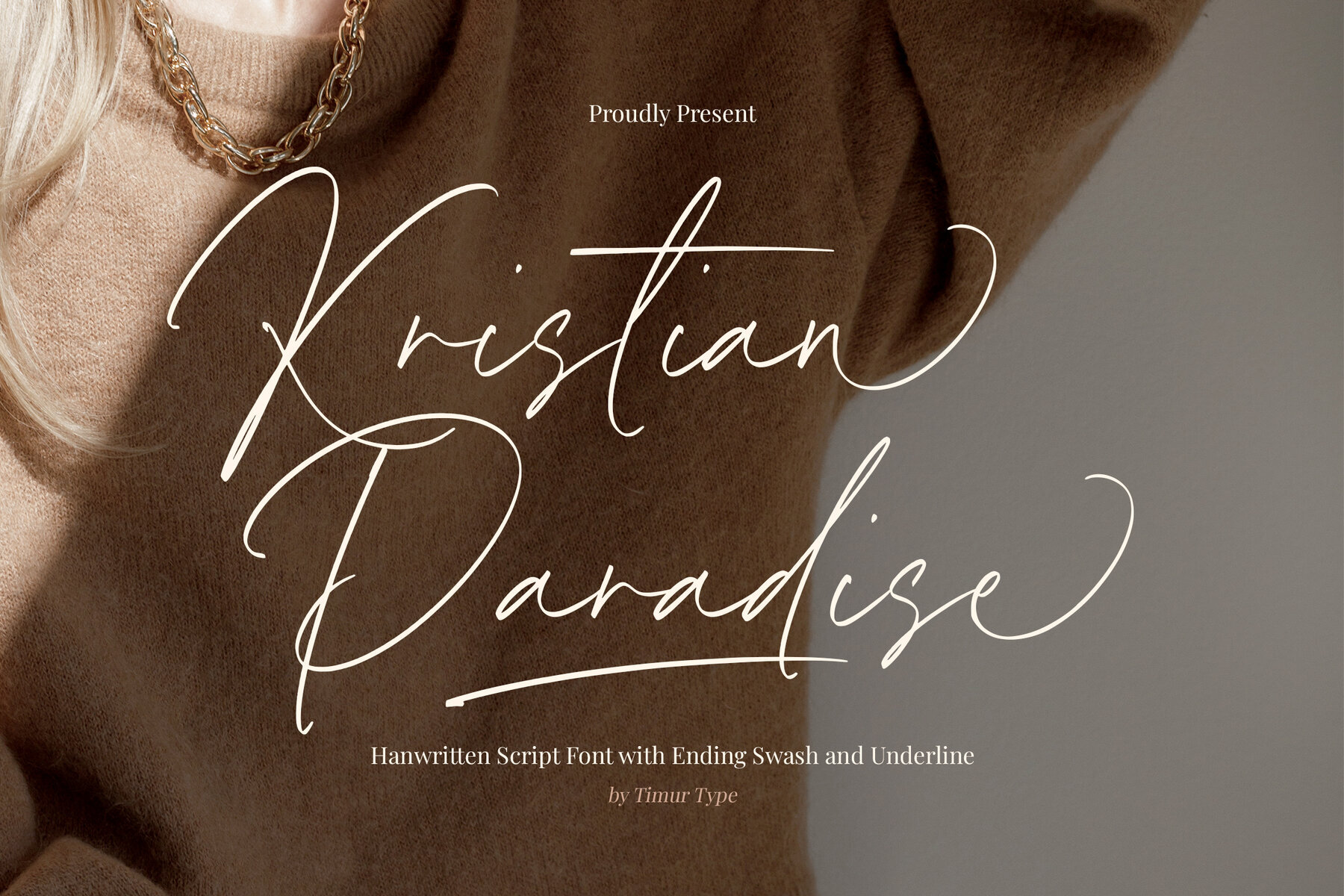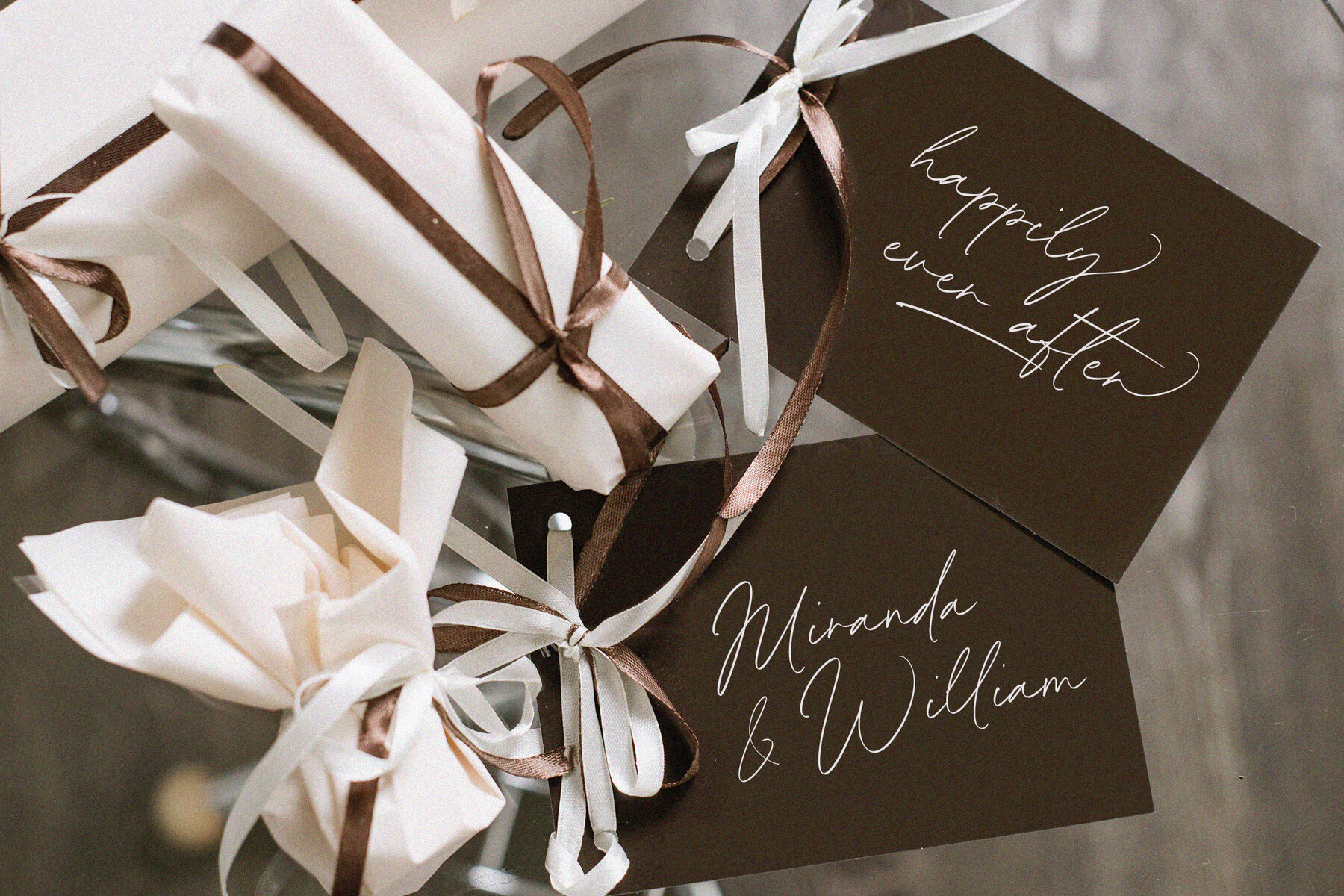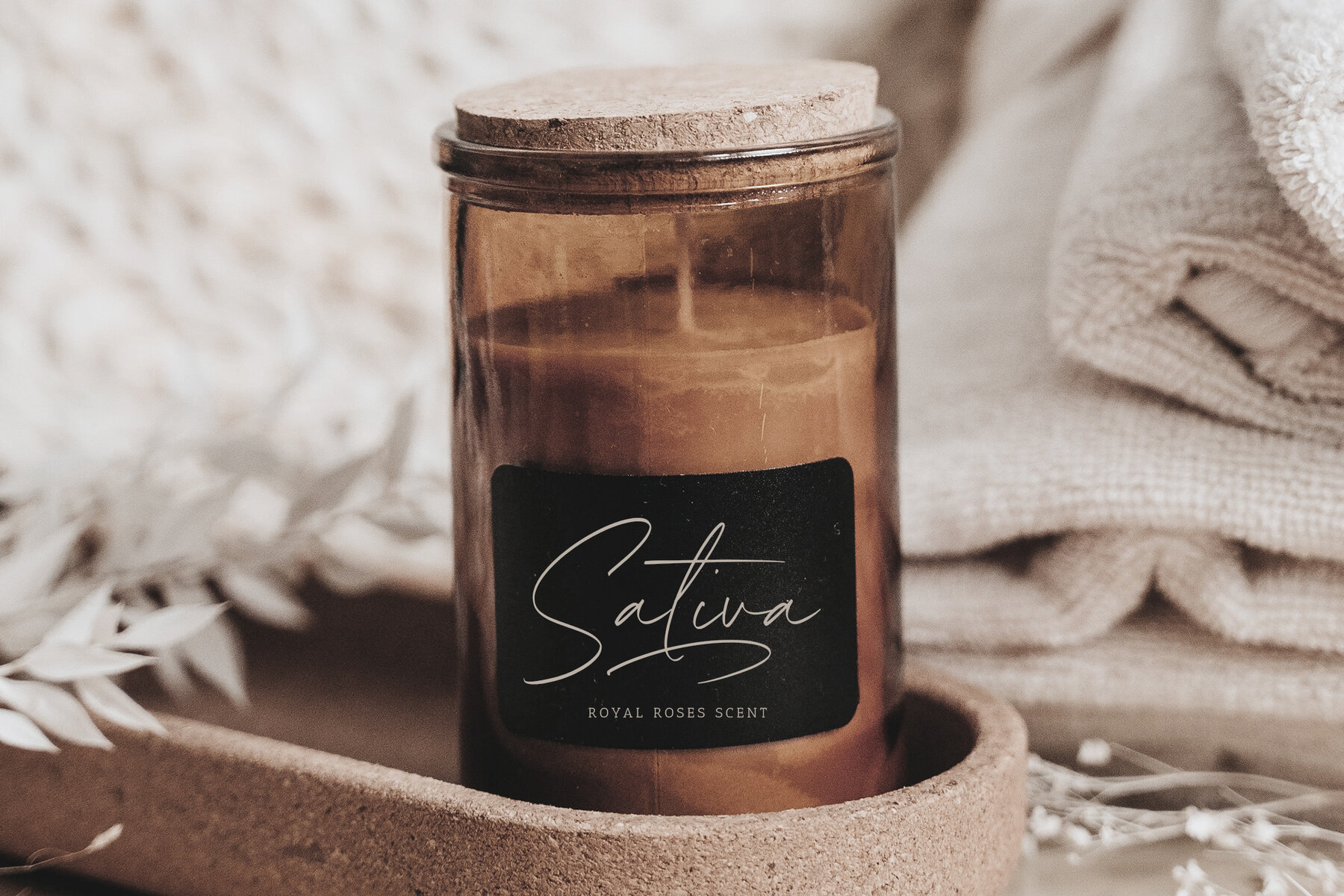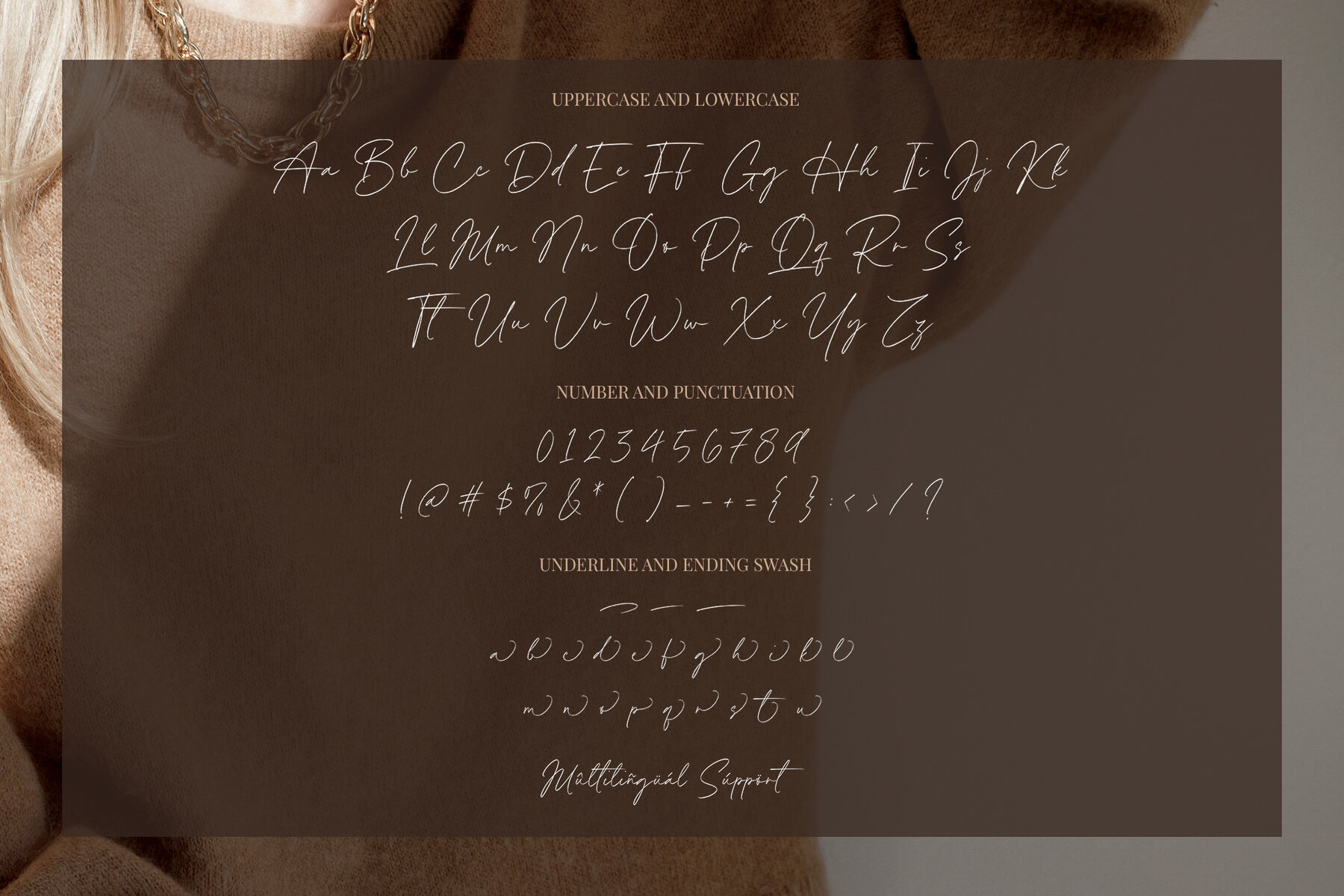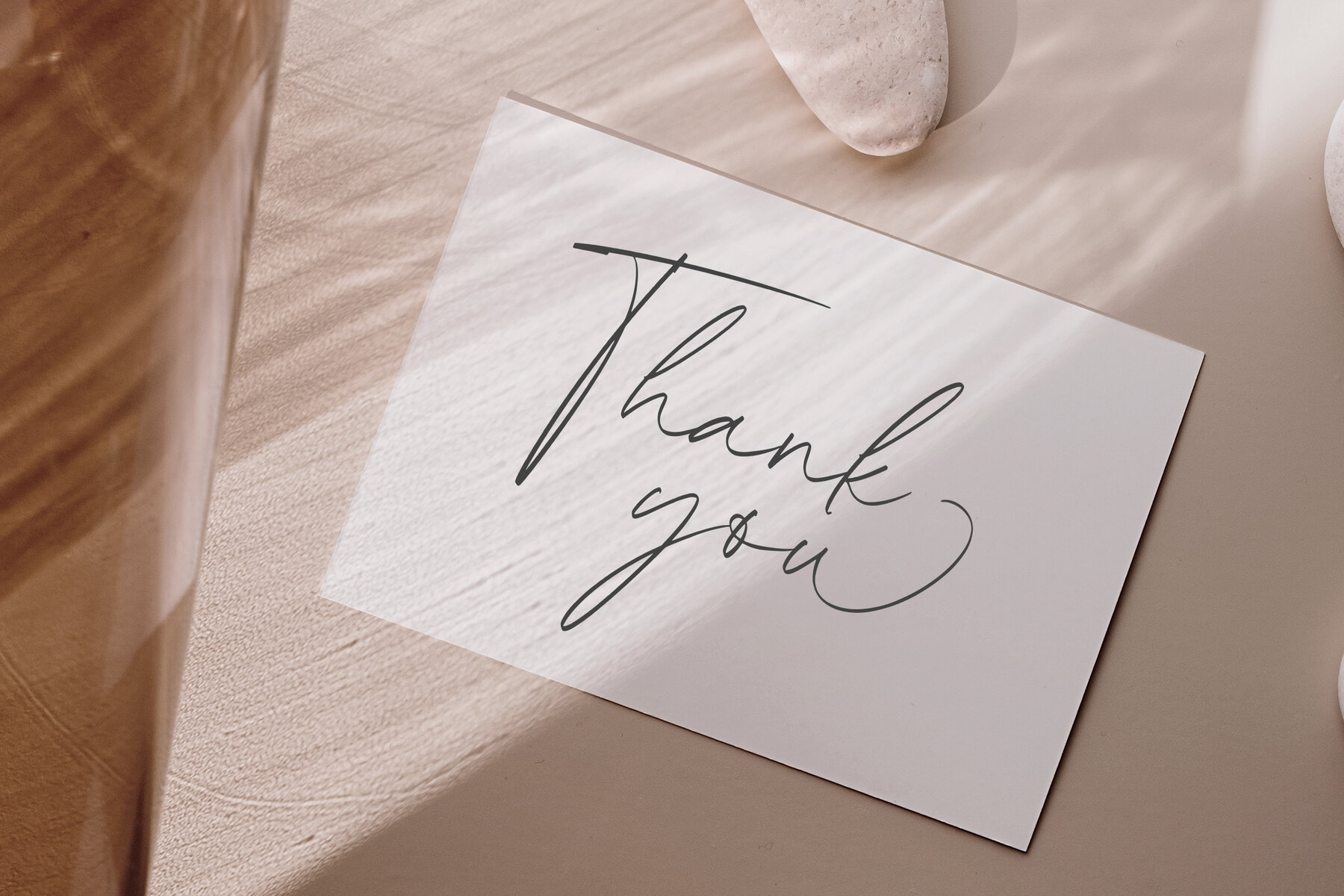
Kristian Paradise Font
Kristian Paradise
Kristian Paradise is a mesmerizing handwritten script font that adds a touch of elegance to your designs. It features enchanting swashes and a graceful underline, perfect for creating stylish and sophisticated projects. The natural flow of Kristian Paradise makes it ideal for a variety of applications such as wedding invitations, greeting cards, branding, and social media graphics.
Designed with a blend of style and sophistication, this font ensures that your creations stand out. Its unique handwritten feel provides a personal and artistic touch, making your work truly unique. The intricate swashes enhance its visual appeal, offering versatility for both formal and informal design needs. Make a statement with Kristian Paradise and infuse your projects with its elegant charm.